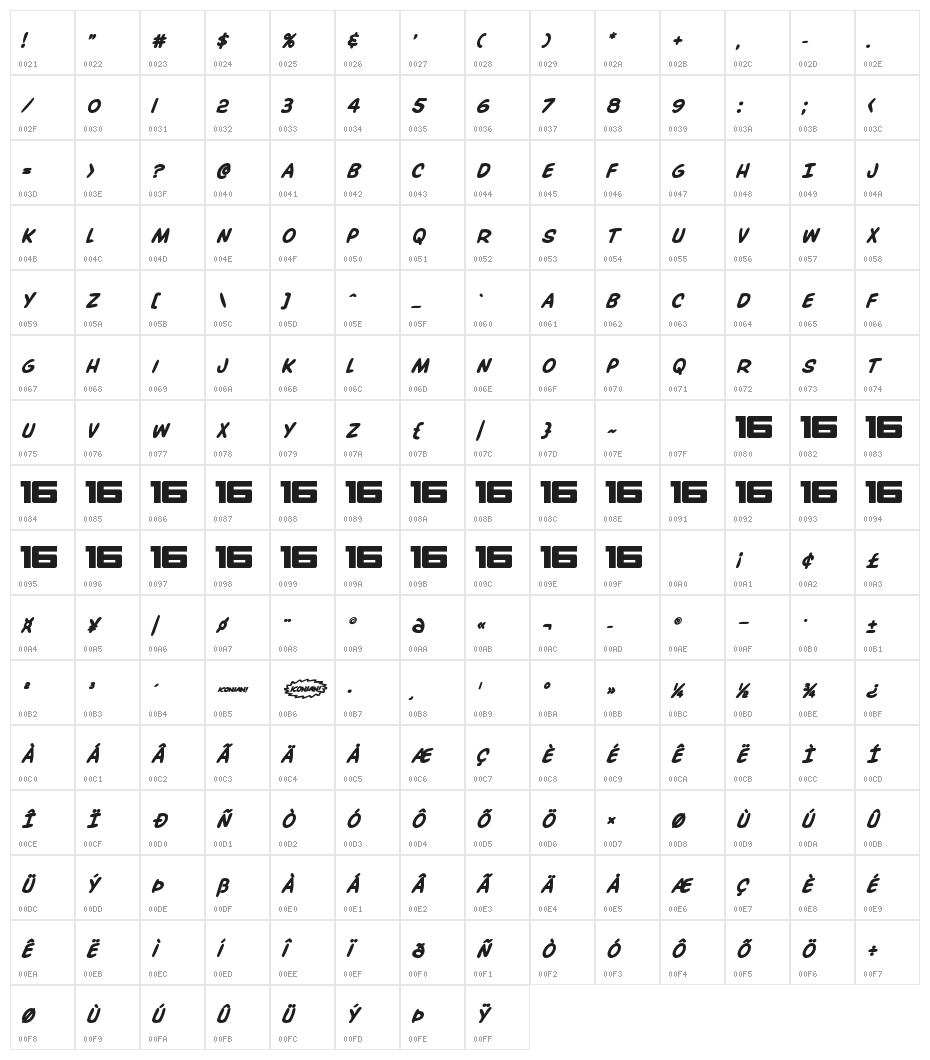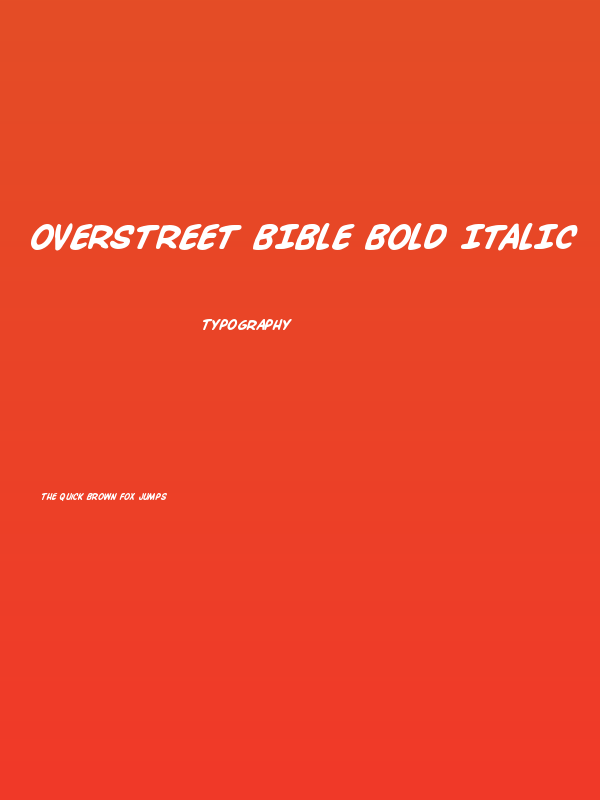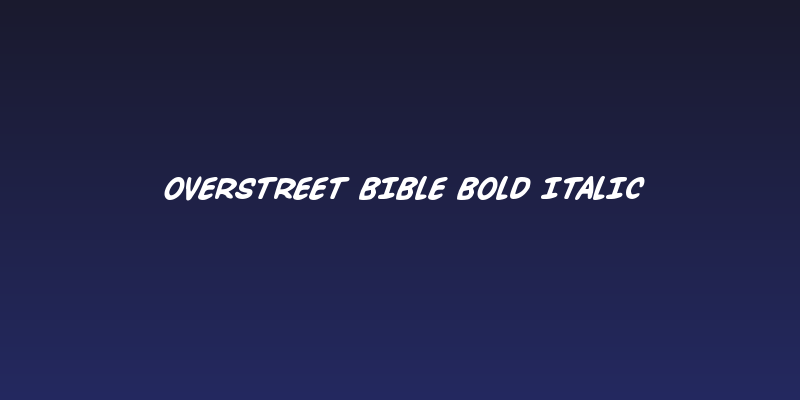
Overstreet Bible Bold Italic Font
Overstreet Bible Bold Italic Description
This font features a bold and italic style with a playful and dynamic appearance. The letters are rounded and slightly slanted, giving a sense of movement and energy. The uppercase and lowercase characters maintain a consistent style, with smooth curves and a uniform thickness that enhances readability. The numbers and special characters follow the same design principles, ensuring a cohesive look across all elements. This font's boldness and slant make it stand out, ideal for projects that require a lively and engaging typeface.
| Proposed Projects | Ideal for branding, posters, and headlines that need a playful and energetic touch. |